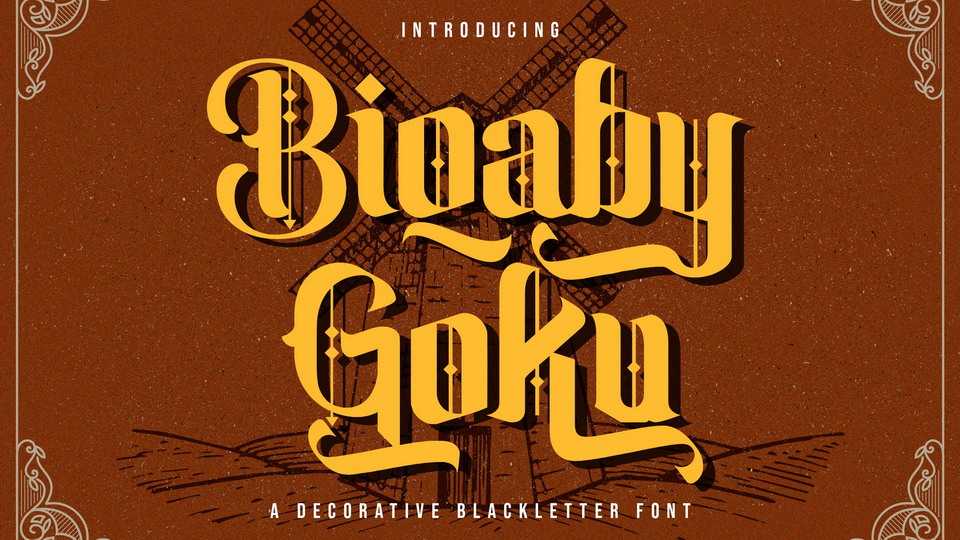
Download Biqaby Goku font, an incredibly authentic and daring blackletter typeface. Add Biqaby Goku to your favorite creative ideas and notice how it makes them stand out.